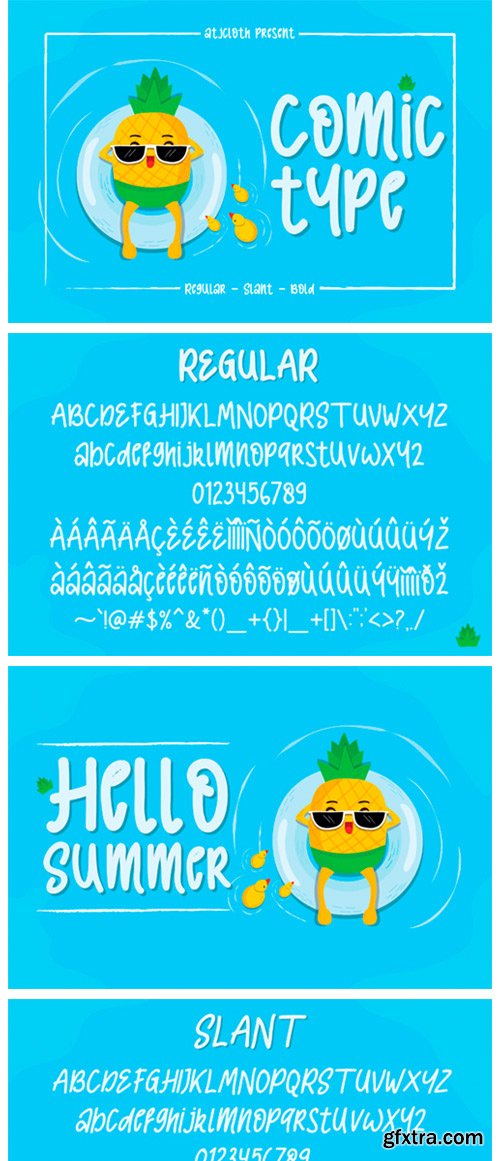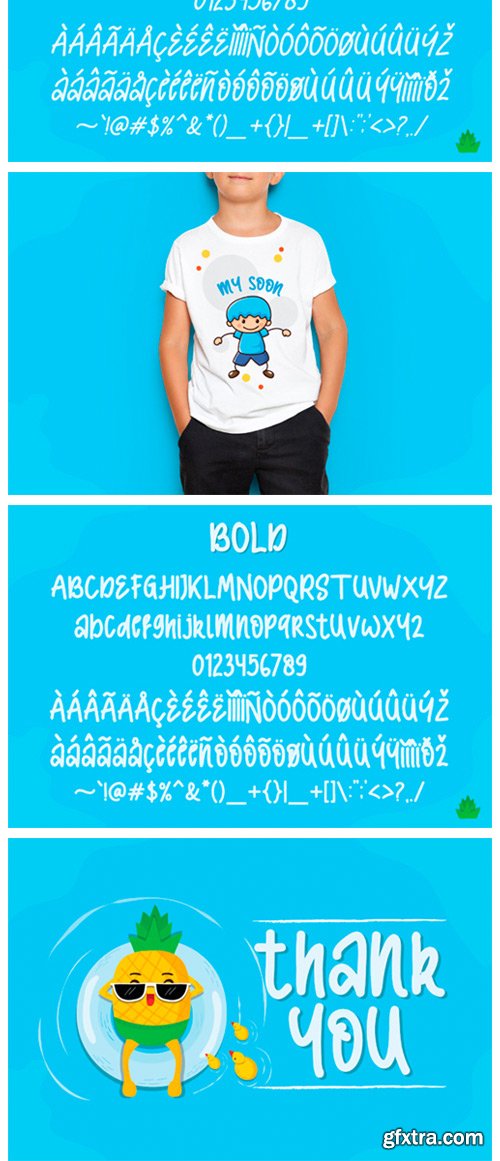
Comic Type Font
Comic Type comes in three styles. Its characters have been drawn by hand to give them a warm and authentic look. Comic Type is perfect for comic text, baby products, children’s fashion, baby store logos and other creative designs.